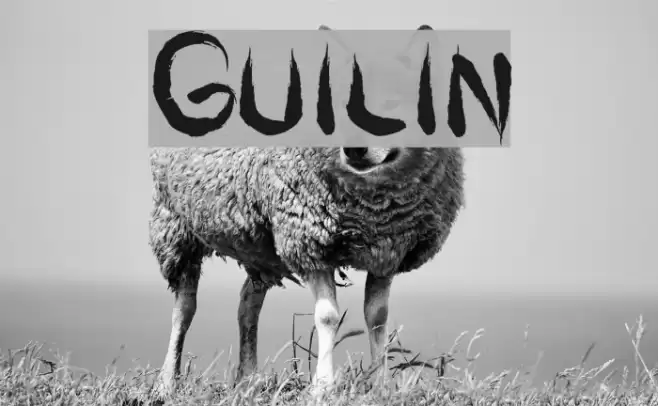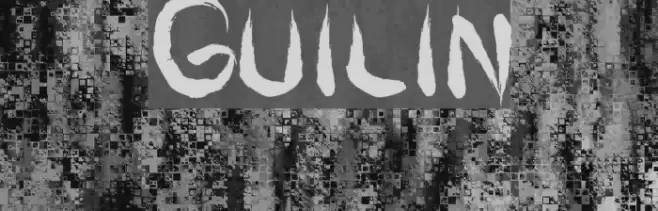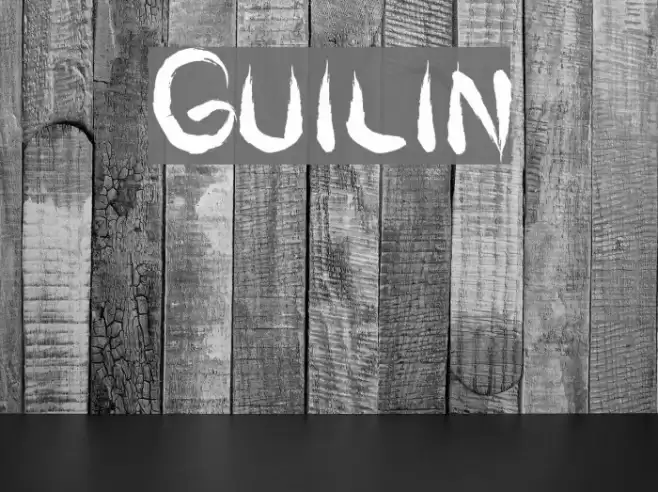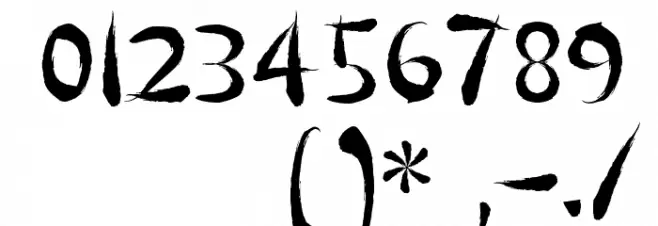
Guilin Font
Guilin Description
This font features a bold and expressive brush style, characterized by its dynamic and energetic strokes. The letters have a hand-painted appearance, with varying thickness and a slightly irregular form that adds a sense of movement and spontaneity. The uppercase and lowercase letters maintain a consistent style, with a playful yet sophisticated look. The numerals and special characters follow the same artistic approach, making them ideal for creative and artistic projects. The overall design is both eye-catching and versatile, suitable for a range of design applications.
A bold, expressive brush-style font with dynamic strokes and a hand-painted appearance from Uncategorized fonts.
- Proposed Projects: Ideal for posters, branding, packaging, and any project requiring a creative and artistic touch.